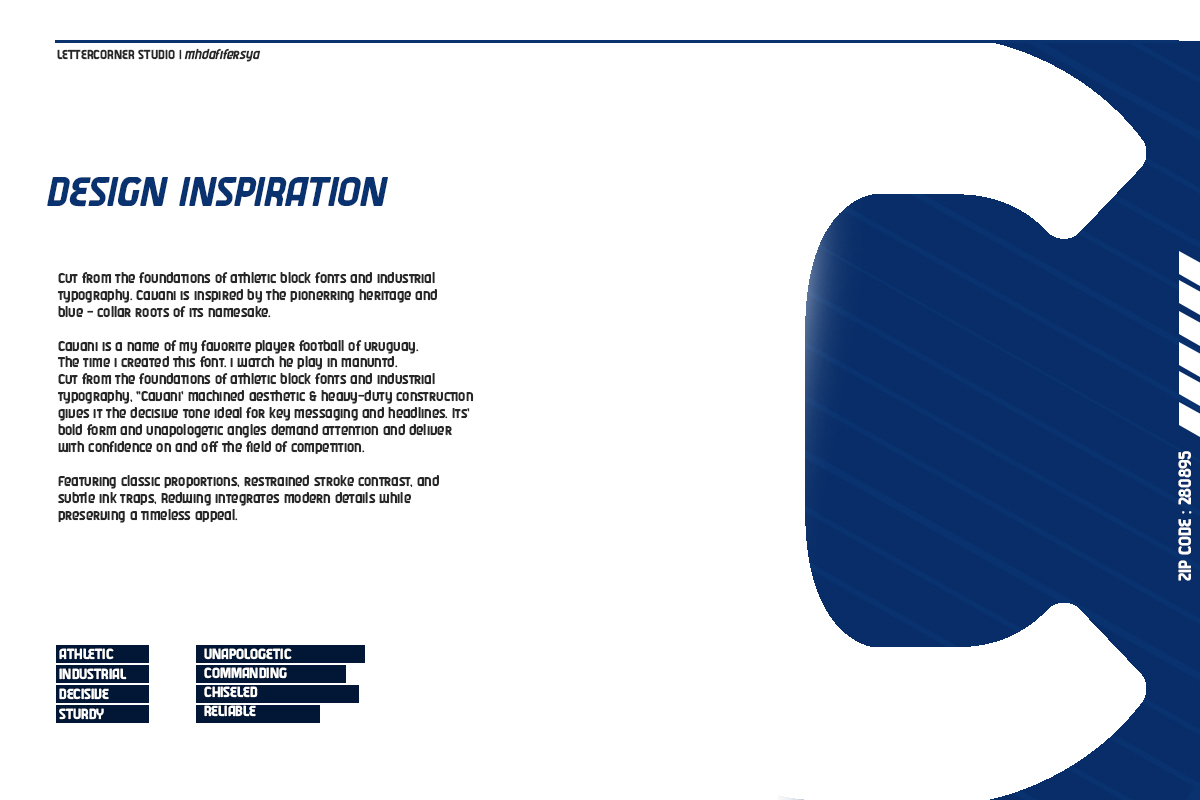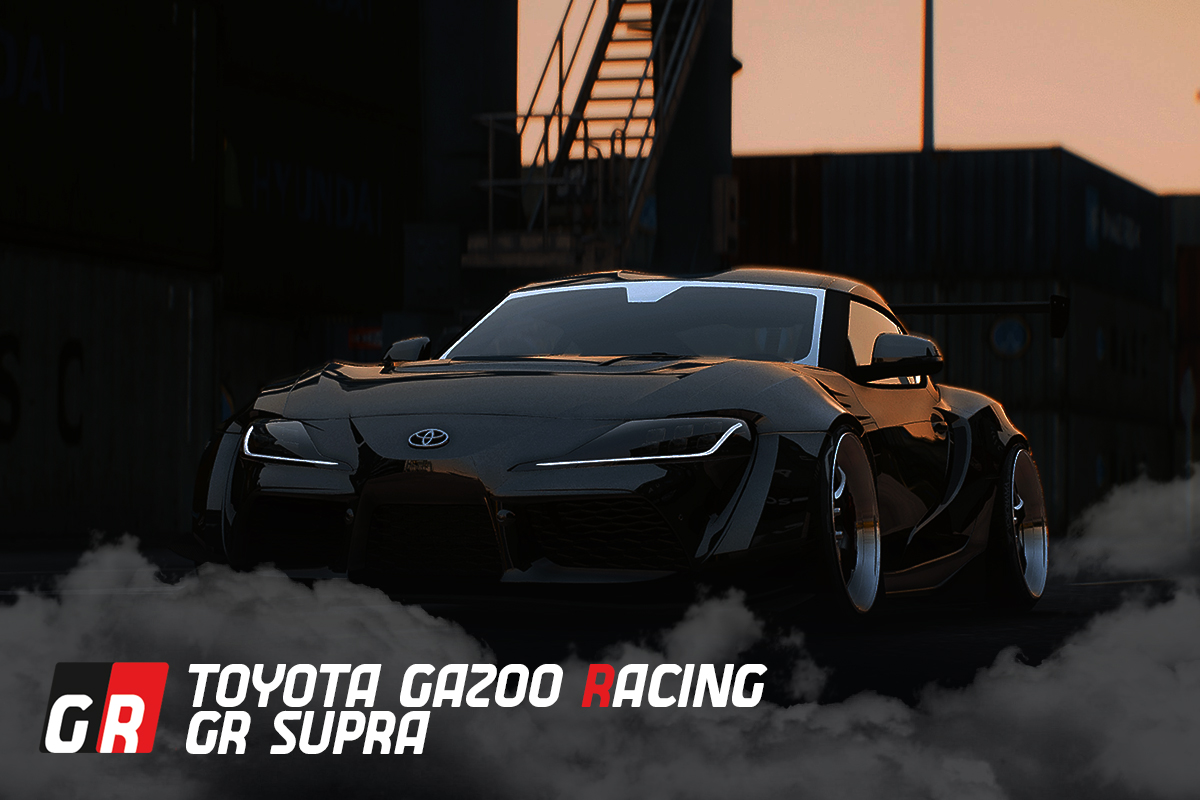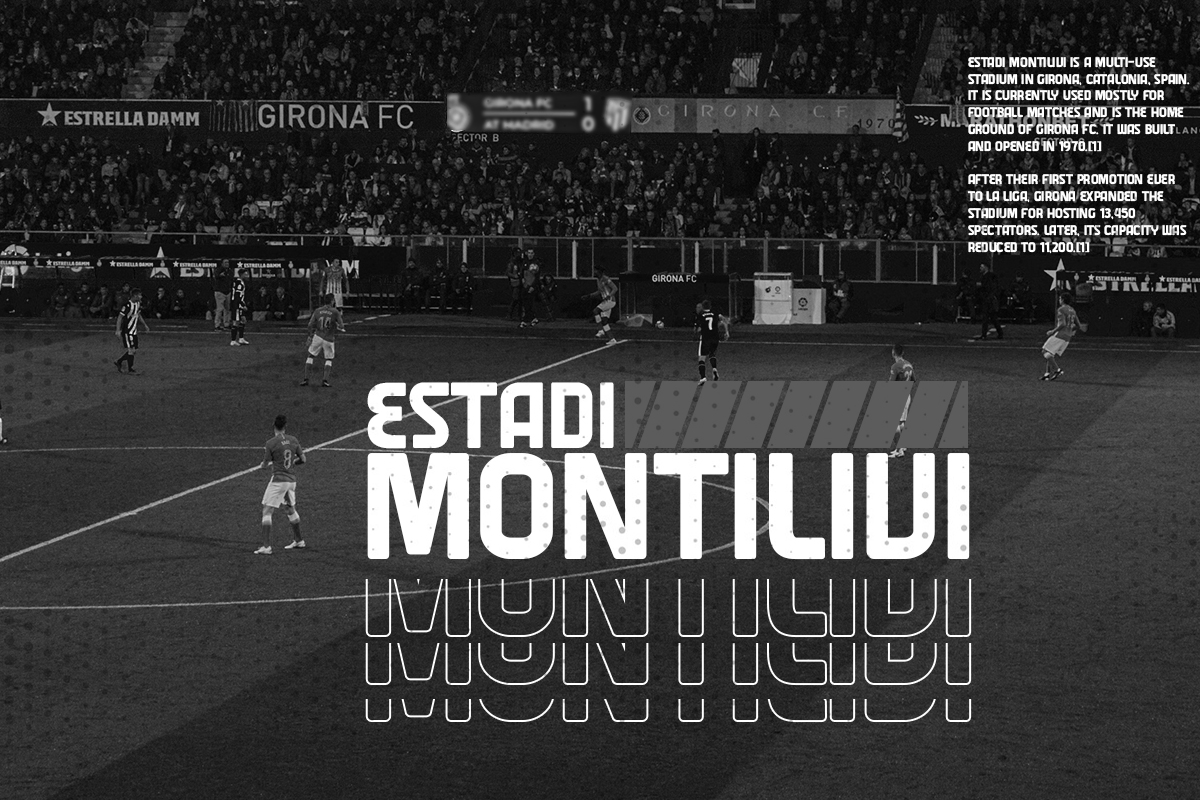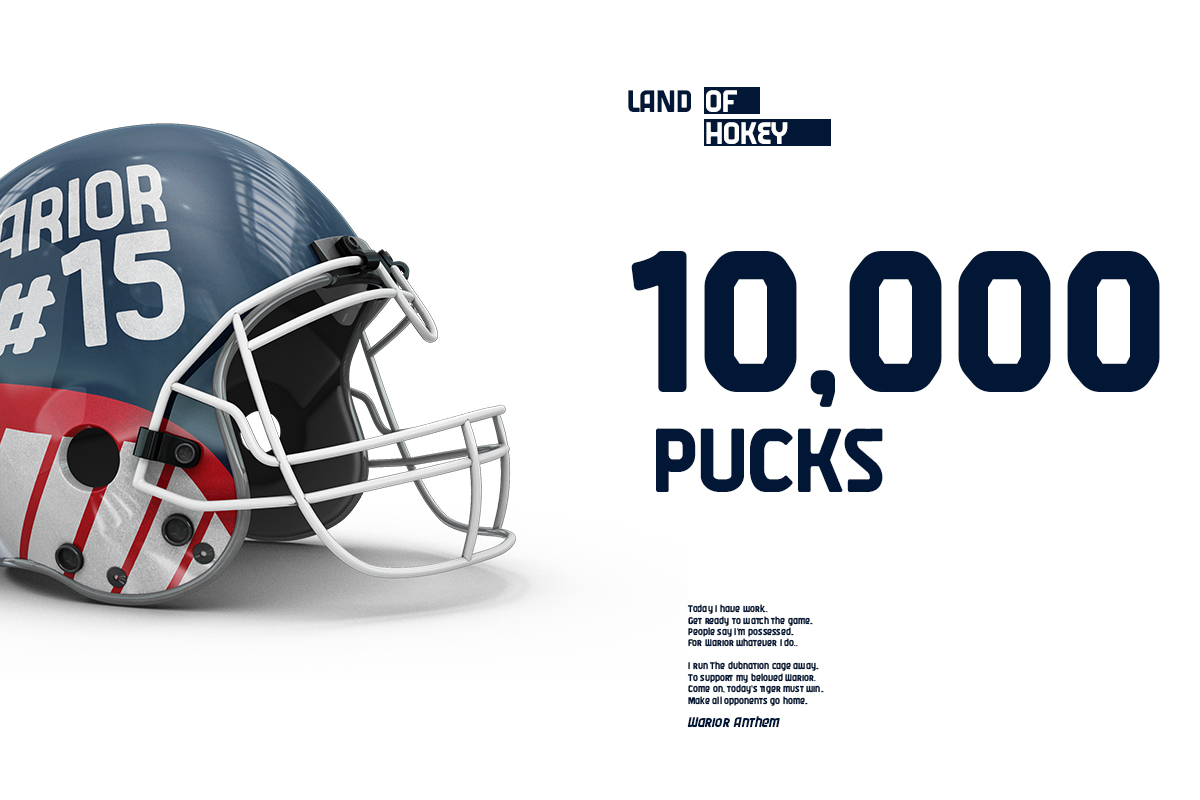
Varane Font
Varane Display Font
Cut from the foundations of athletic block fonts and industrial typography, Varane machined aesthetic & heavy-duty construction gives it the decisive tone ideal for key messaging and headlines. Its’ bold form and unapologetic angles demand attention and deliver with confidence on and off the field of competition.
Featuring classic proportions, restrained stroke contrast, and subtle ink traps, Varane integrates modern details while preserving a timeless appeal.